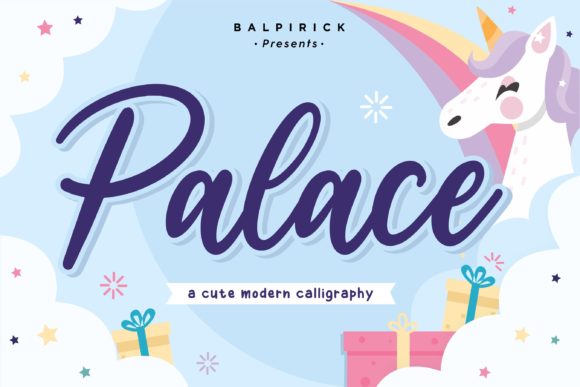
Unleash the Artist Within: Palace Font - The Gateway to Creative Freedom
In a world where individuality and expression reign supreme, Palace Font emerges as a captivating script font, ready to ignite your creative spirit and transform your designs into masterpieces. Step into a realm of limitless possibilities, where your ideas take flight and your artistic vision knows no bounds.
Crafted with meticulous attention to detail, Palace Font effortlessly captures the charm and elegance of classic calligraphy, while maintaining a contemporary edge that resonates with modern sensibilities. Its graceful curves and playful flourishes add a touch of whimsy and sophistication to any project, inviting you to embrace your unique style and leave a lasting impression.
Whether you're an ardent Instagram enthusiast seeking to elevate your social media presence, a passionate crafter yearning for captivating DIY projects, or a seasoned designer seeking distinctive fonts for your creative endeavors, Palace Font stands as your steadfast companion, ready to elevate your creations to new heights of beauty and originality.
Immerse yourself in the boundless applications of Palace Font and watch as your imagination takes center stage. Craft enchanting invitations that evoke a sense of timeless elegance, design heartfelt greeting cards that convey your deepest emotions, or create stunning logos that exude professionalism and creativity. The possibilities are endless, limited only by the depths of your imagination.
As you delve into the world of Palace Font, you'll discover a treasure trove of captivating features that make it an indispensable tool for your creative arsenal:
- Unparalleled Legibility: Palace Font's carefully crafted characters ensure effortless readability, even at smaller font sizes, making it ideal for a wide range of applications, from website designs to printed materials.
- Exquisite Detailing: Each letterform in Palace Font is meticulously adorned with intricate details, adding a touch of artistry and sophistication to your designs, ensuring they stand out from the crowd.
- Versatile Applications: Palace Font's versatility knows no bounds. Whether you're designing logos, crafting social media posts, creating digital art, or personalizing merchandise, this font seamlessly adapts to your creative vision, bringing your ideas to life with unparalleled elegance.
- Extensive Language Support: Palace Font embraces the beauty of diversity, supporting a wide range of languages, allowing you to connect with audiences across borders and cultures, sharing your creative expressions with the world.
Join the creative revolution and embrace Palace Font today. Let your imagination soar, explore the depths of your creativity, and unlock a world of endless possibilities. With Palace Font as your trusted companion, you'll discover a new realm of artistic expression, where your designs come alive with captivating charm and timeless elegance.